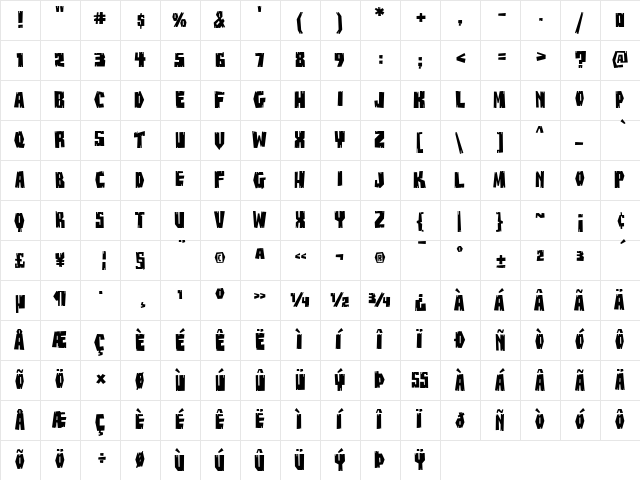
BuzzSaw Chipped AOE Regular
Design Context for BuzzSaw Chipped AOE Typeface
BuzzSaw Chipped AOE is a composed and adaptable typeface that performs quietly and consistently across a wide range of design contexts.
Pro Tip: Use BuzzSaw Chipped AOE in both headline and body roles to test its range before committing to a single application.